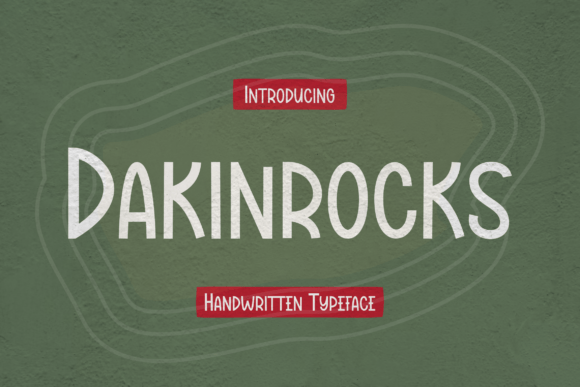
Prepare to be captivated by Dakinrocks, the sans-serif font that exudes elegance and simplicity. Its thin-lettered design adds a touch of lightness and playfulness to your creations, making them stand out from the crowd. With its clean lines and delicate proportions, Dakinrocks is a versatile font that seamlessly adapts to any project, whether it's branding, advertising, or digital designs.
Step into a world of sophistication and modernity with Dakinrocks. Its sleek and minimalistic appearance adds a touch of class and luxury to your typographic creations. Whether you're designing a logo, website, or social media campaign, Dakinrocks will elevate your designs and leave a lasting impression.
Unlock your creativity and immerse yourself in the endless possibilities of Dakinrocks. Its versatility knows no bounds, making it perfect for a wide range of applications. From branding and advertising to digital designs, Dakinrocks effortlessly adapts and enhances your projects.
Experience the contemporary charm of Dakinrocks and elevate your typographic journey. With its unique combination of elegance, simplicity, and versatility, Dakinrocks is the perfect choice for designers seeking to make a statement. Embrace its beauty and watch your creations flourish.